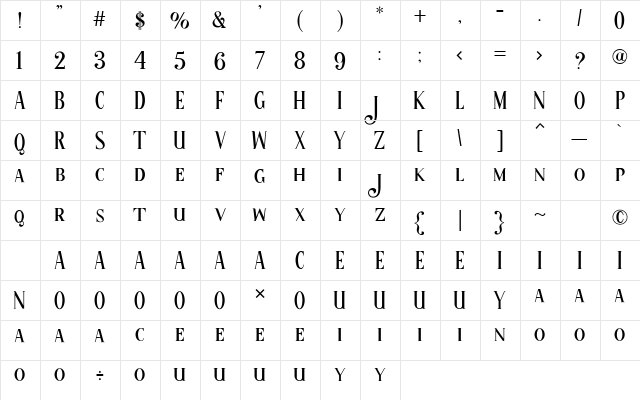
Magic Sparkle Regular
| Foundry | Hans Co. |
| Designer | Burhan Afif |
Design Context for Magic Sparkle Typeface
Magic Sparkle is a composed and adaptable typeface that performs quietly and consistently across a wide range of design contexts.
Pro Tip: Use Magic Sparkle in both headline and body roles to test its range before committing to a single application.